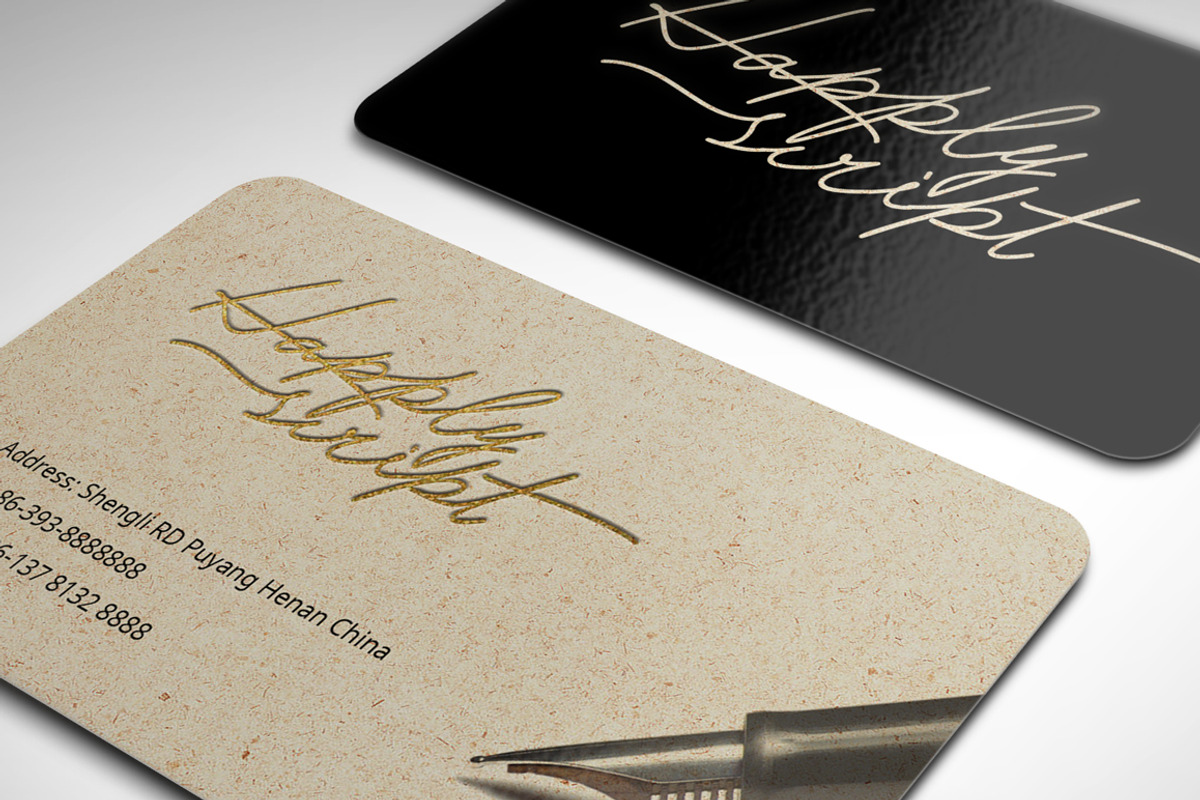
Happlyscript Typeface
Happlyscript Typeface by alphadesign is a font selected for branding, posters, packaging, typography.
- It also contains ligatures and contextual alternates,stylistic alternates, hope you like it.
Why Happlyscript Typeface is worth a look
Happlyscript Typeface by alphadesign fits naturally into Branding, posters, packaging, typography.